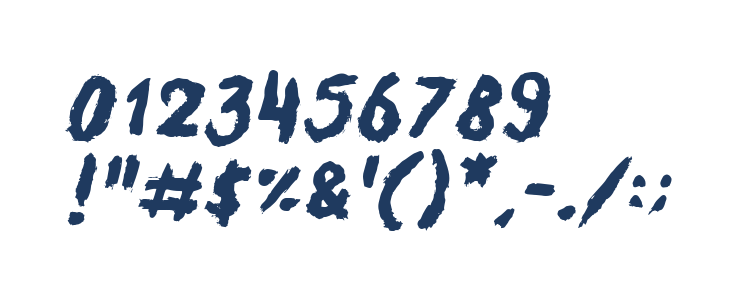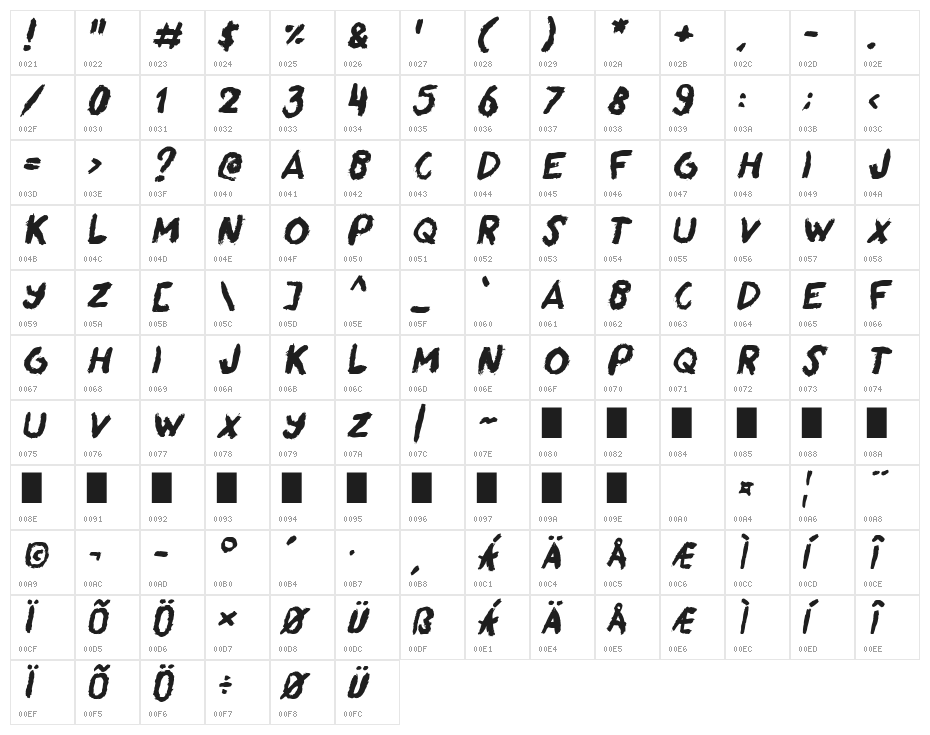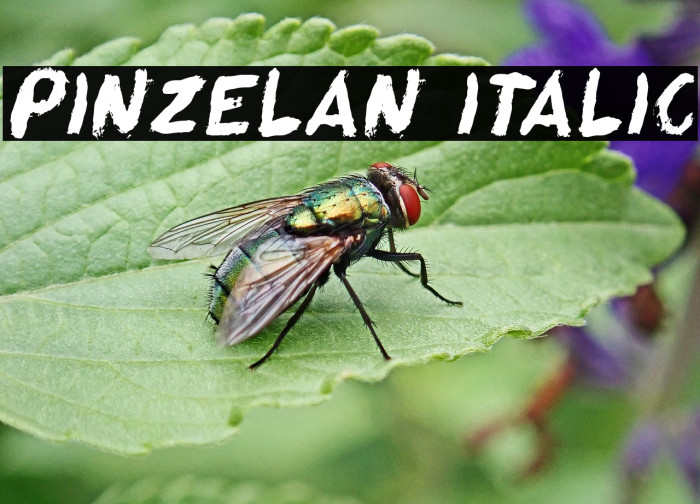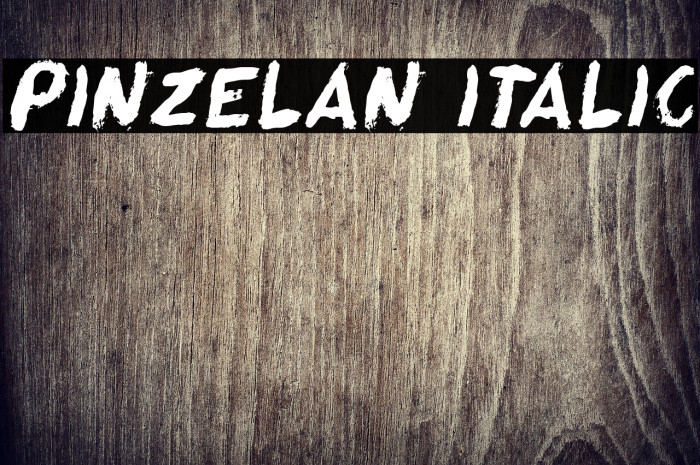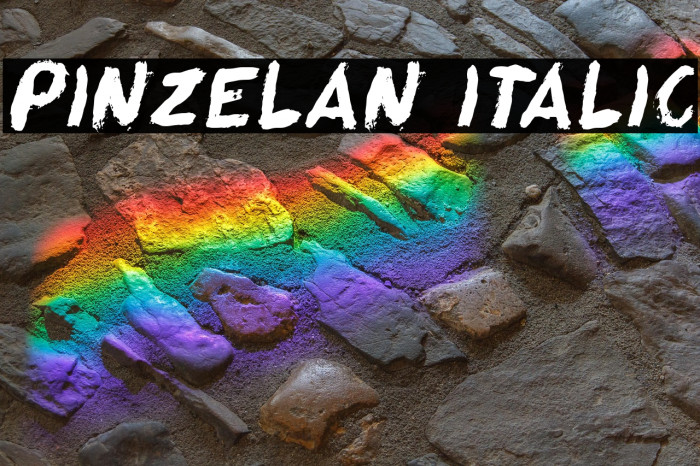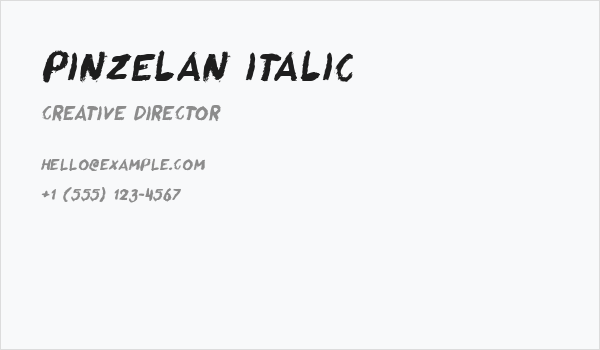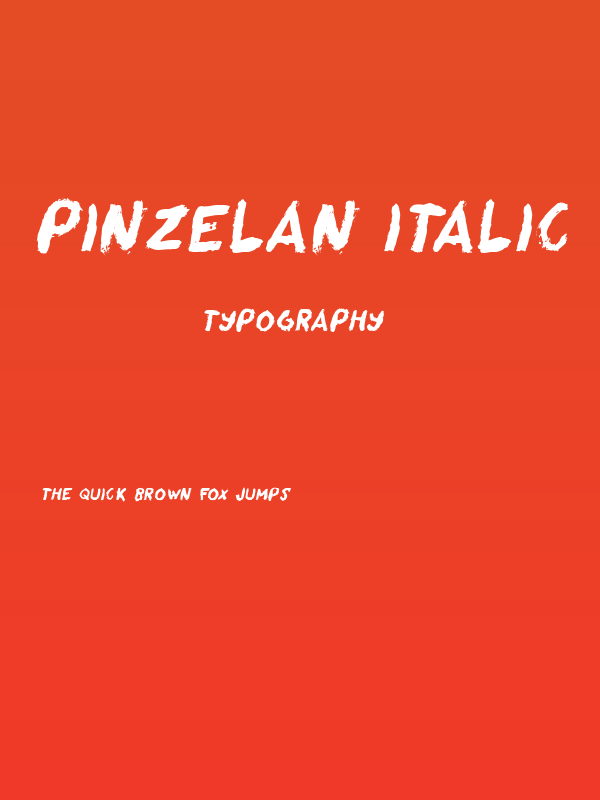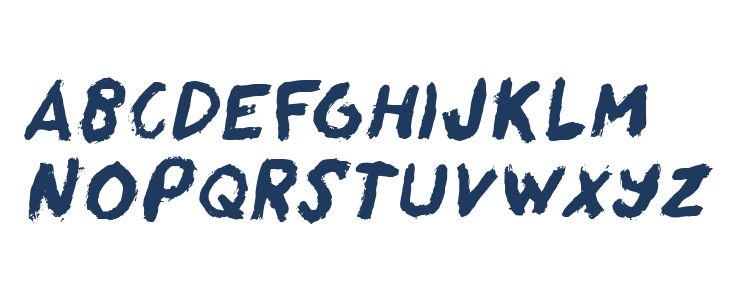
Pinzelan Italic Font
Pinzelan Italic Description
This font features a bold, expressive style with a brush-like texture, giving it a dynamic and energetic appearance. The strokes are uneven, adding a handcrafted feel that is both artistic and spontaneous. The uppercase and lowercase letters maintain a consistent slant, enhancing the italicized effect. Numbers and special characters follow the same bold and textured design, ensuring uniformity across all characters. The font's overall look is striking and impactful, making it suitable for projects that require a strong visual presence.
| Proposed Projects | Ideal for posters, branding, album covers, and any creative projects that require a bold, artistic touch. |